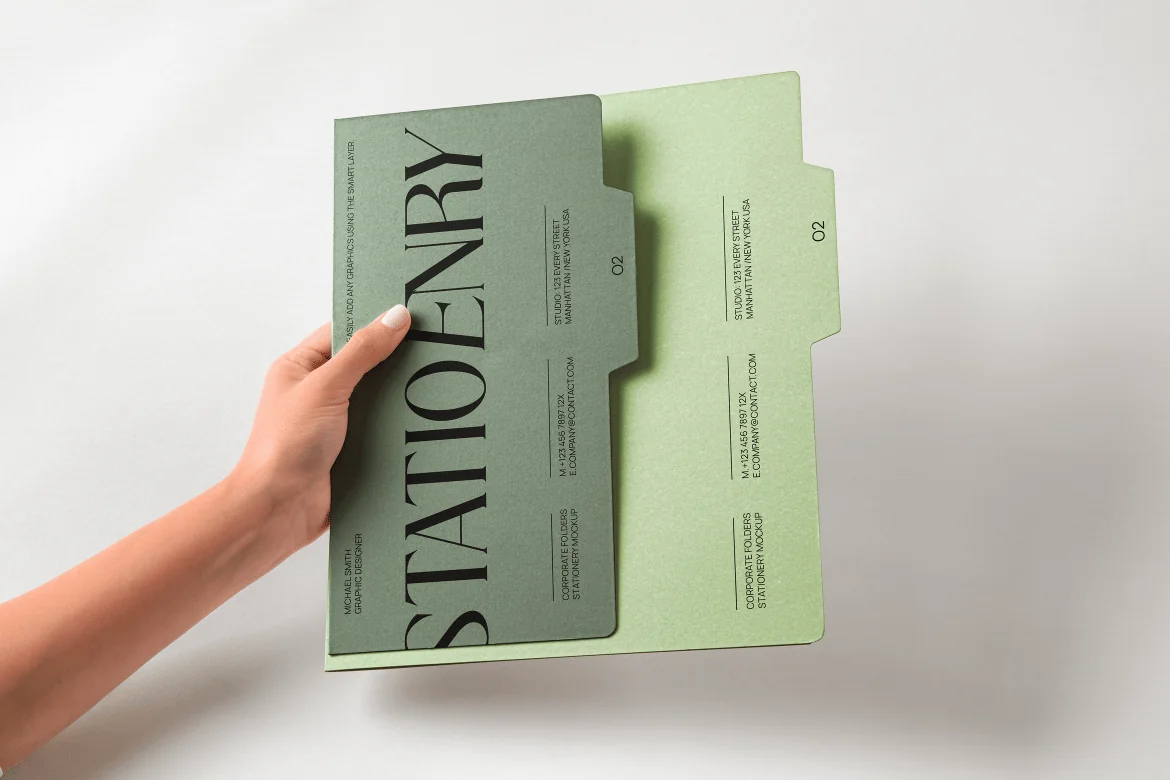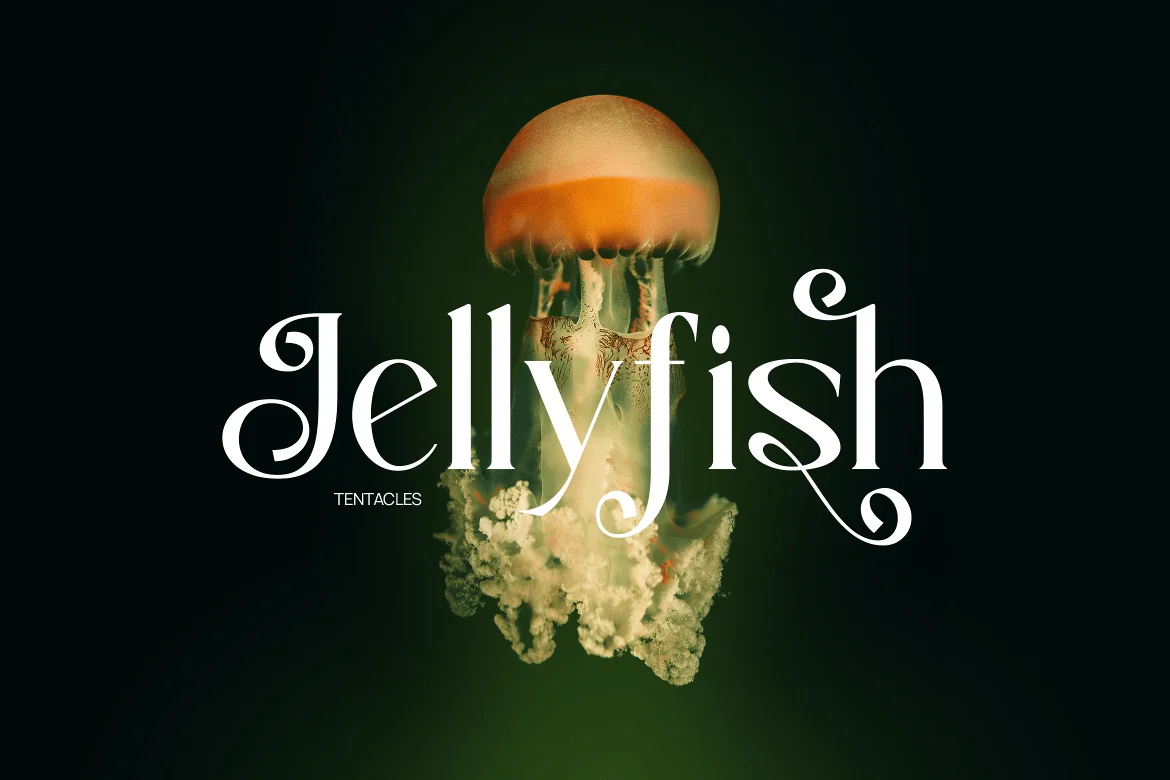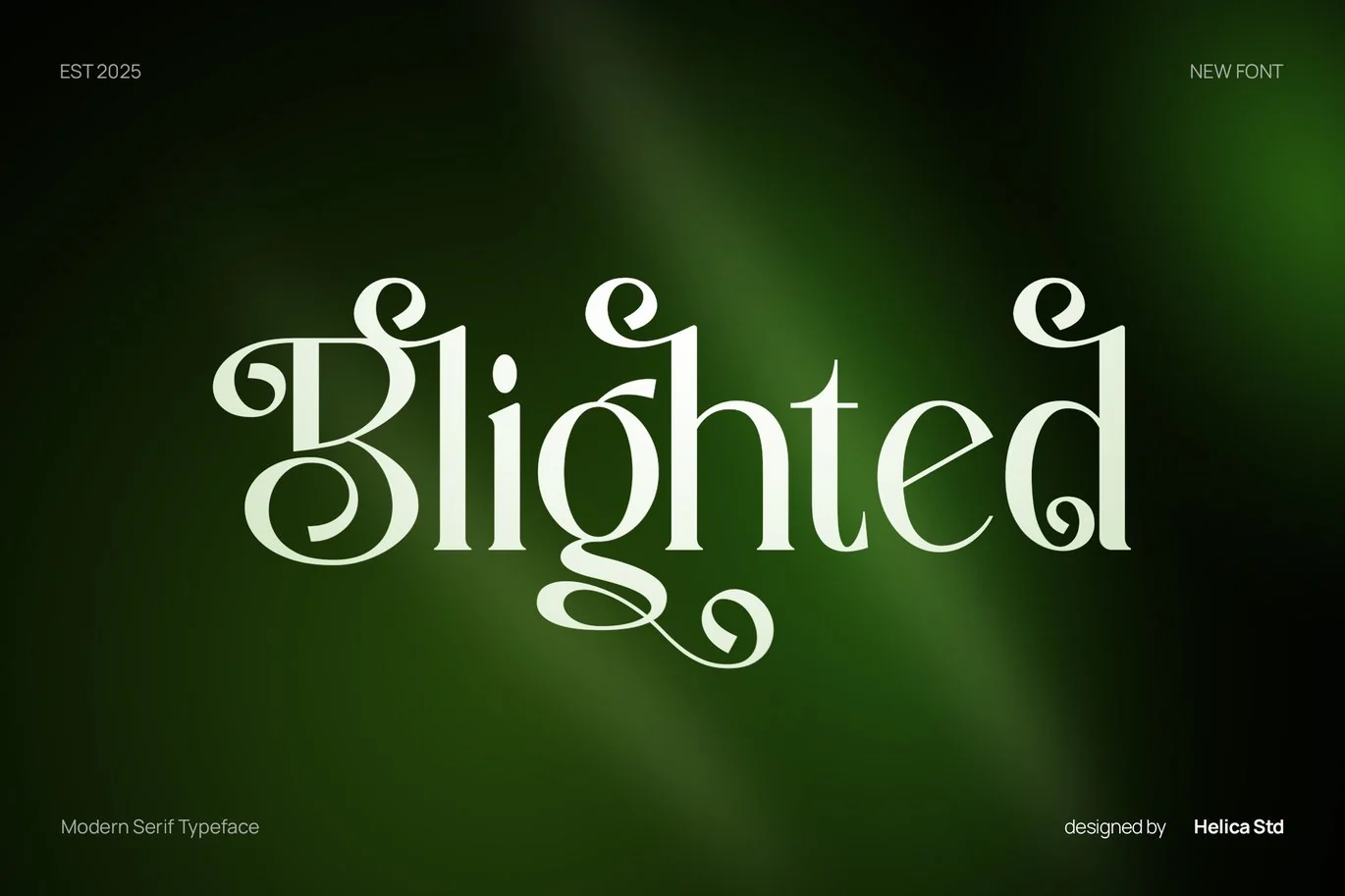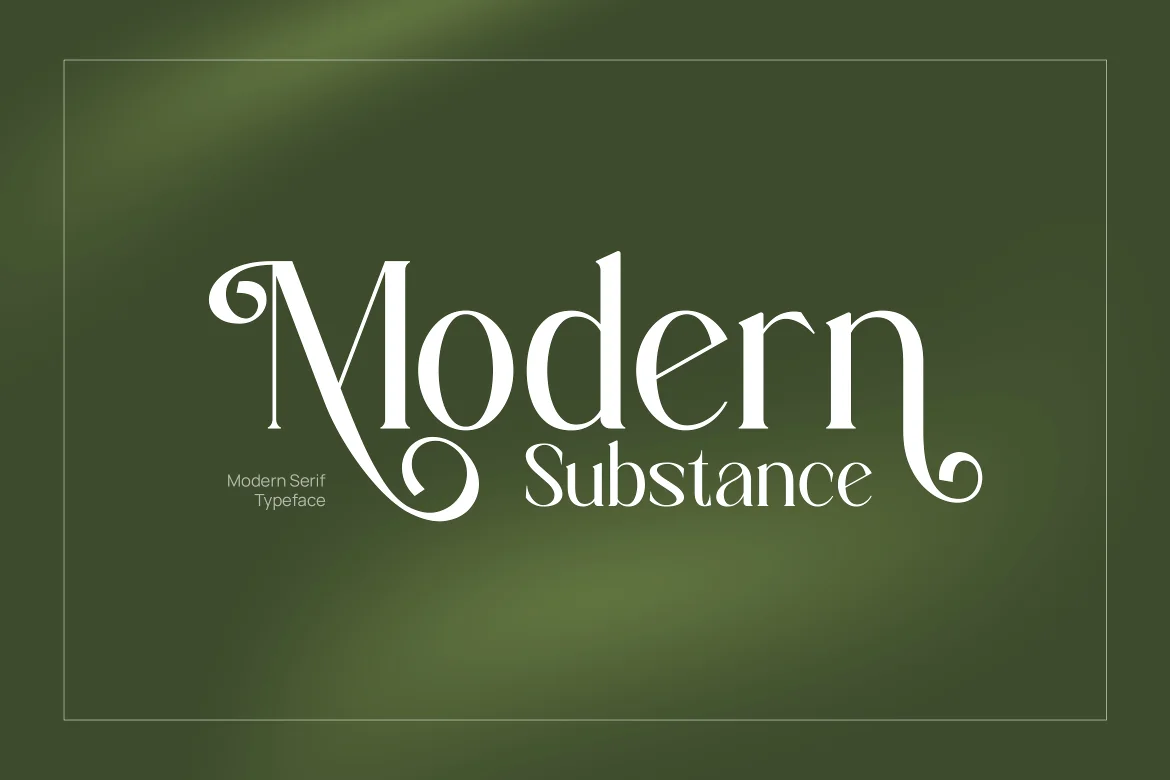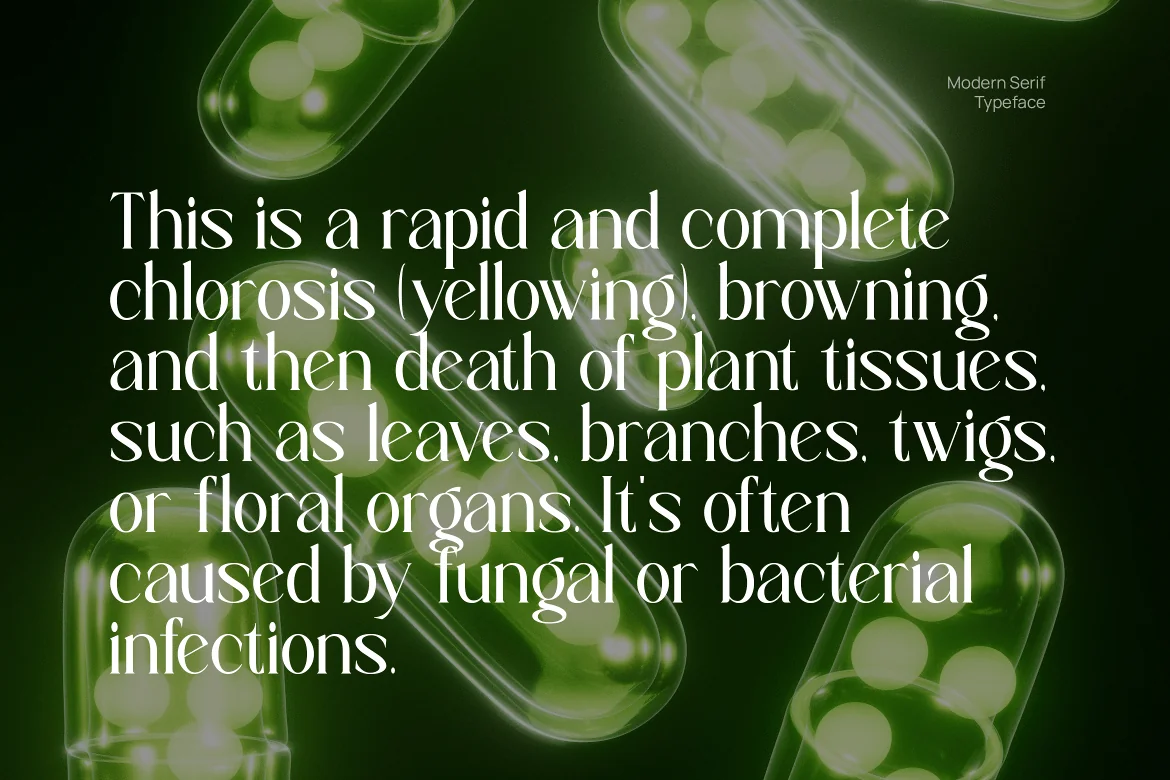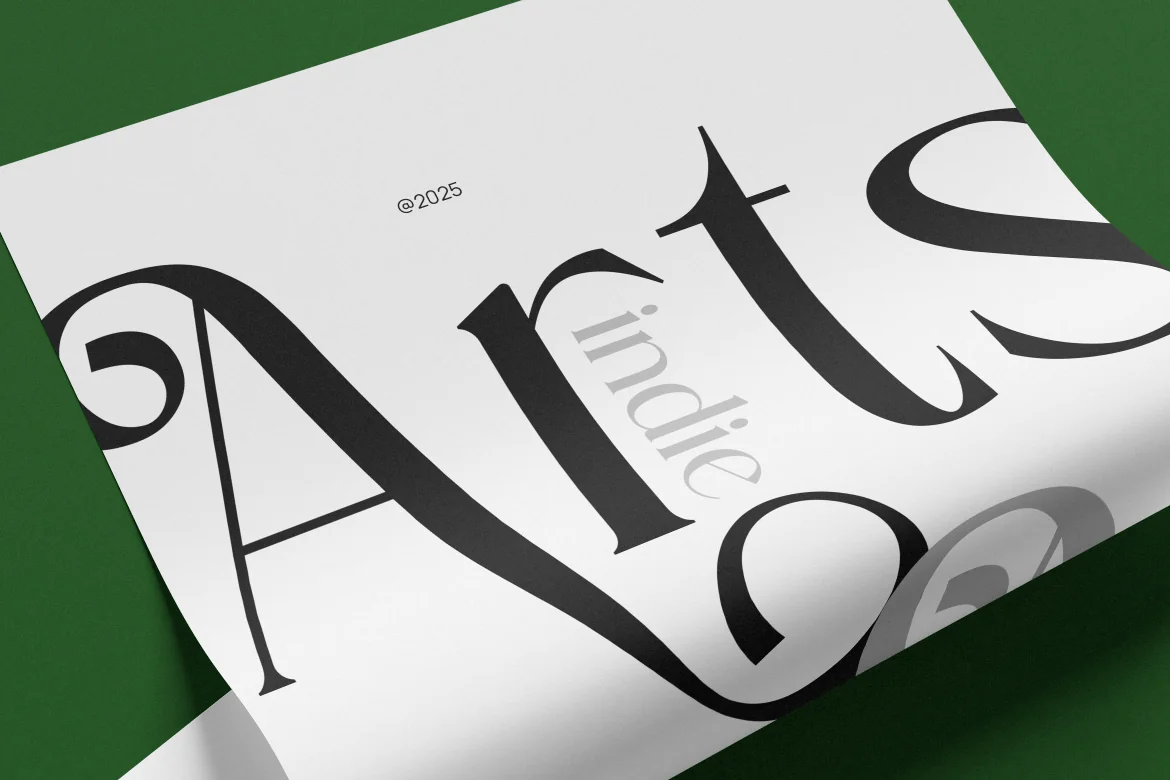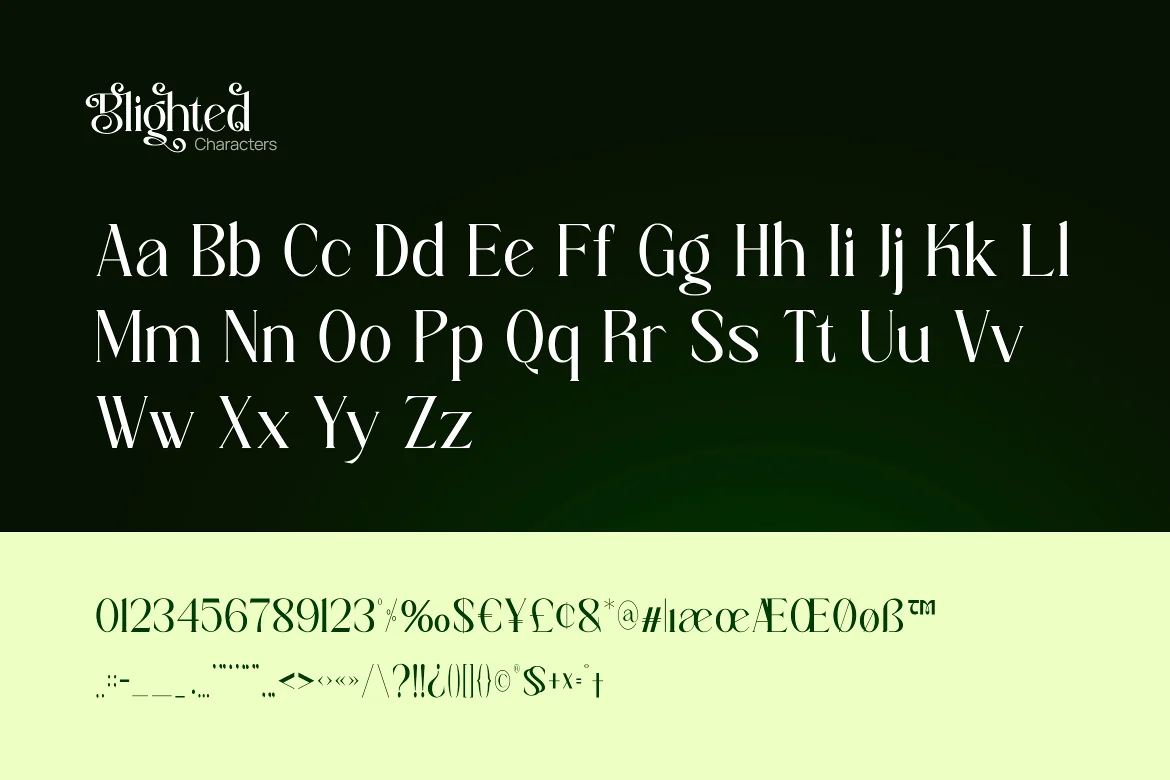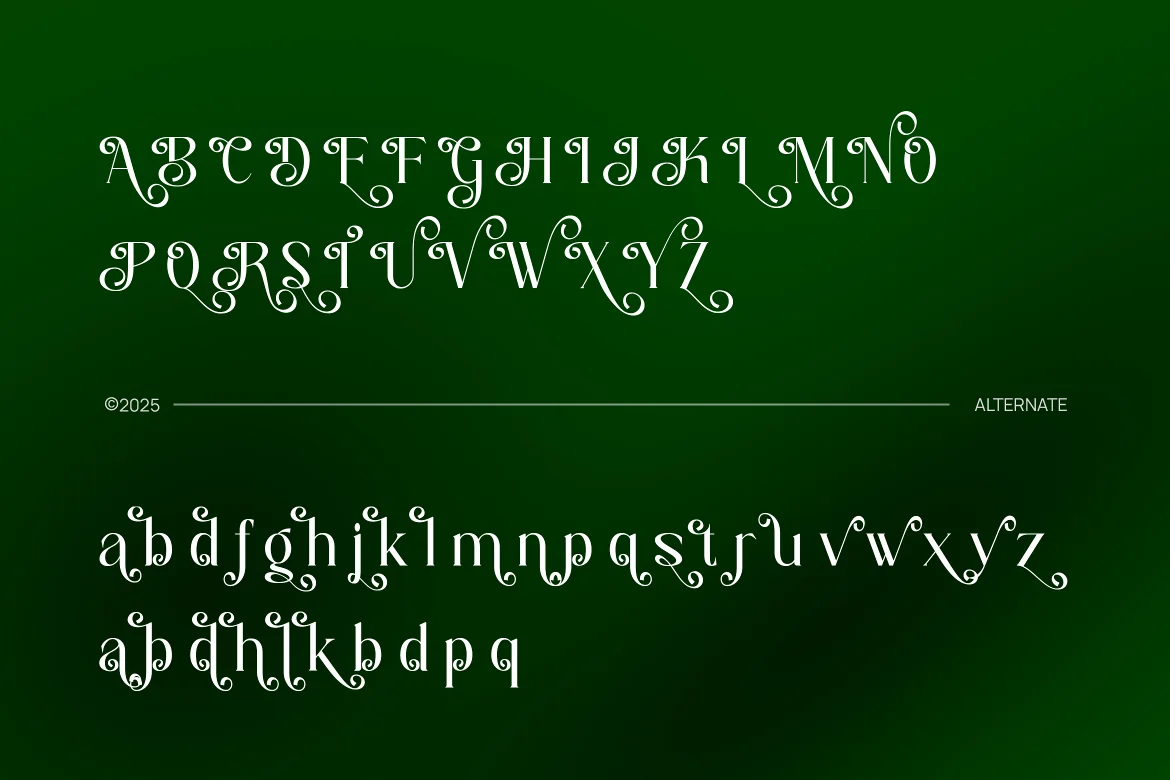
Bligthed Modern Classic Elegant Serif Font
Bligthed is a modern classic serif font that exudes elegance and sophistication. With its beautiful ligatures, alternates, and support for uppercase and lowercase letters, Bligthed is the go-to choice for high-end branding, editorial designs, and artistic projects. This font strikes the perfect balance between traditional aesthetics and modern sensibilities.